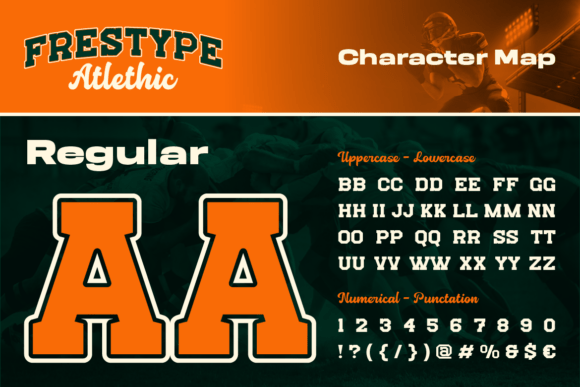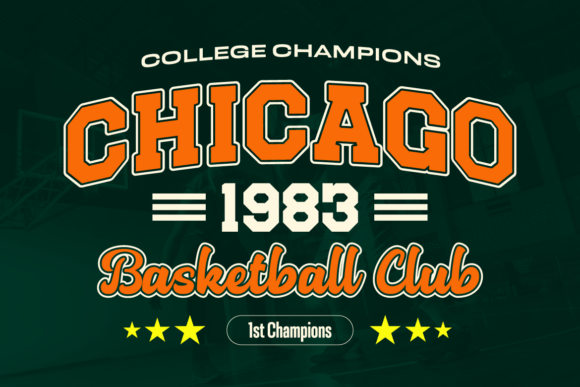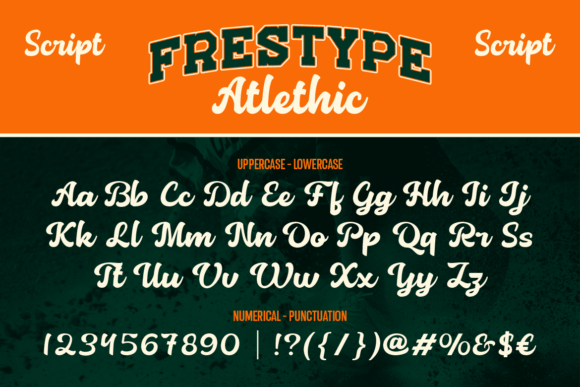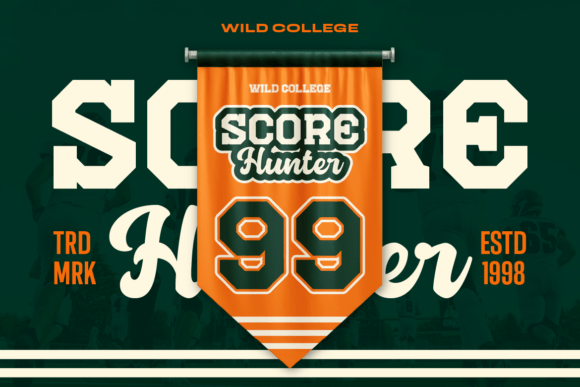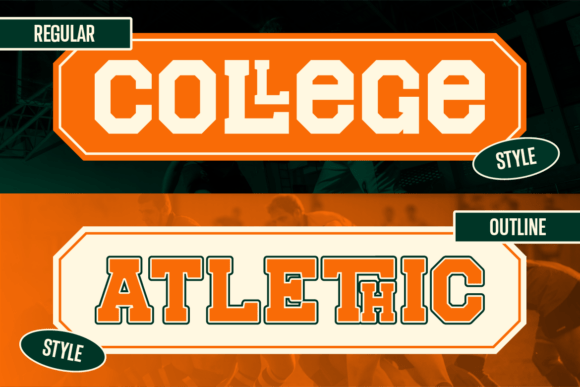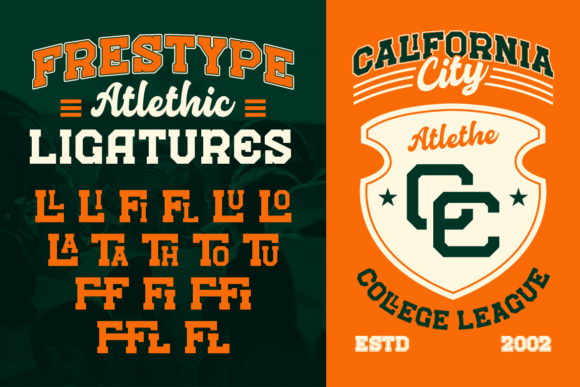
Get Ready to Score Big with Frestype Atlethic Duo Font
Have you ever felt the rush of adrenaline as you design a new logo or branding for your favorite sports team? The thrill of bringing a fresh idea to life, of capturing the essence of the game in a single, bold stroke? That’s what we’re about to unleash with Frestype Atlethic Duo Font, a powerhouse of a typeface that embodies the ultimate athletic spirit.
This dynamic duo font combines a strong, arched slab serif with a smooth, energetic script, creating a championship-winning combination that’s sure to elevate your designs. Whether you’re working on a basketball poster, a football jersey, or a college branding campaign, Frestype Atlethic Duo Font has got you covered. With its punchy outlines, sharp angles, and multilingual support, this font is the ultimate game-changer for designers looking to bring the locker room hype to their layouts.
Frestype Atlethic Duo Font Key Features
- Unique Characteristics: The font features a bold and modern design, ideal for sports and fitness-related branding, with custom-designed letterforms and intricate details.
Frestype Atlethic Duo Font Review
I recently had the chance to work with the Frestype Atlethic Duo font, and I must say it’s been an interesting experience. Here are my thoughts on this font:
- Unique Design: The Frestype Atlethic Duo font has a distinct, modern look that can add a touch of sophistication to any design.
- Wide Range of Applications: This font is suitable for various projects, from sports and fitness to fashion and lifestyle.
- High-Quality Vector Graphics: The font’s vector graphics are crisp and clear, making it perfect for digital designs.
- Limited Character Set: The font’s character set is not as extensive as some other fonts, which can be a limitation for more complex projects.
- Not Suitable for Body Text: Due to its bold and playful nature, the Frestype Atlethic Duo font may not be the best choice for body text.
The Frestype Atlethic Duo font is a solid choice for designers looking to add a unique touch to their projects. While it may have some limitations, its unique design and versatility make it a great addition to any font collection. I would recommend it for projects that require a bold, modern look.
Getting the Most Out of Frestype Athletic Duo Font
To get the most out of Frestype Athletic Duo Font, use it for:
- Headings and titles in sports and fitness designs.
- Body text in athletic and outdoor apparel branding.
- Creating a modern and bold visual identity.